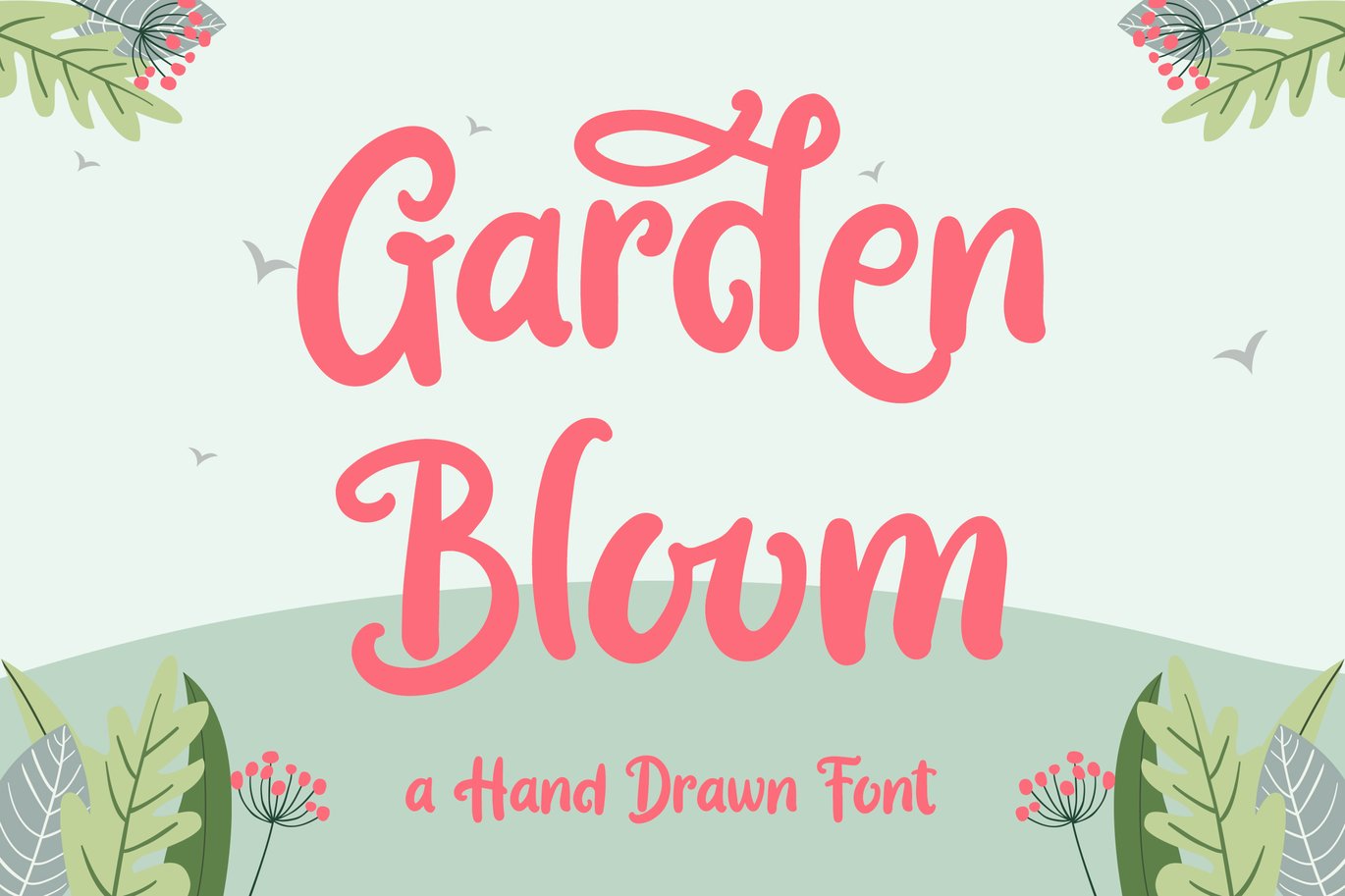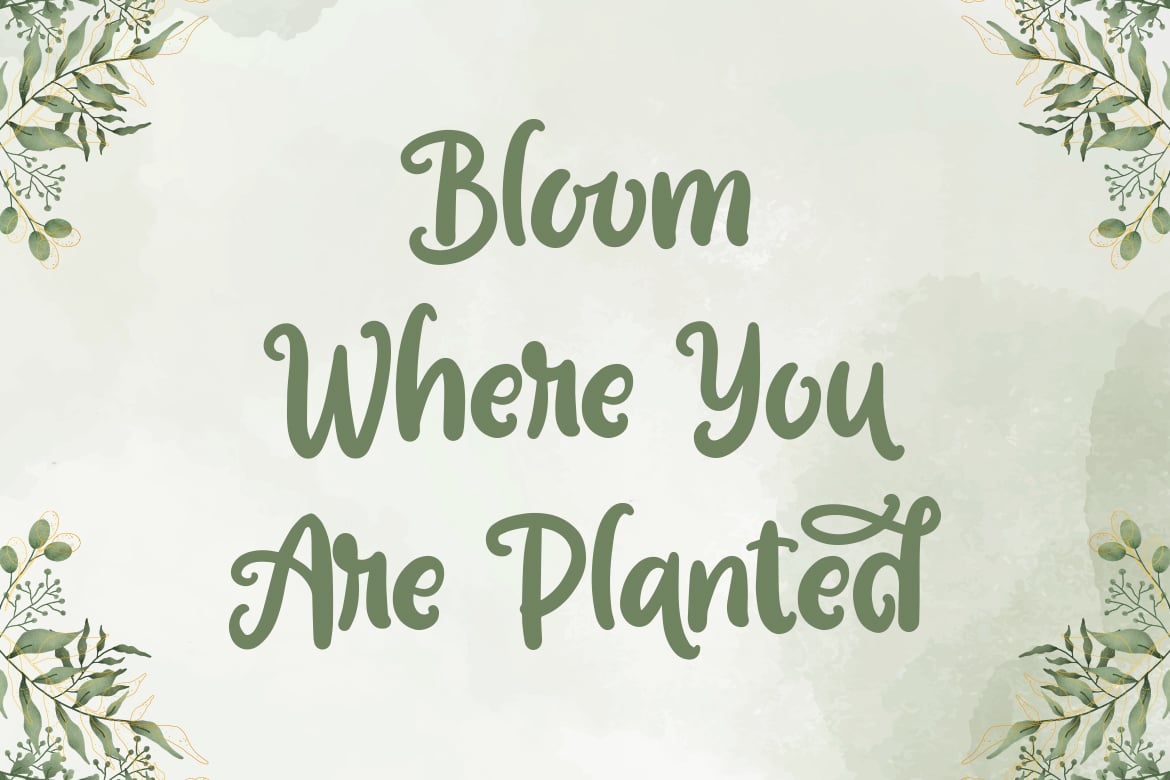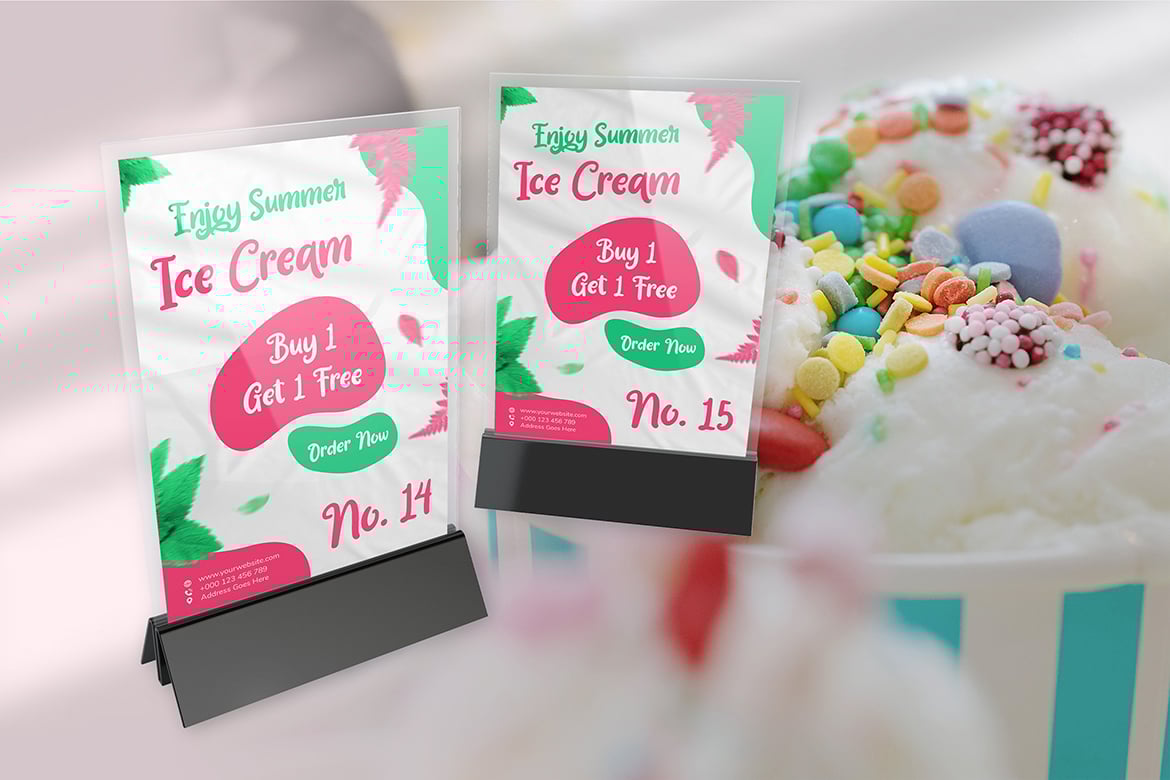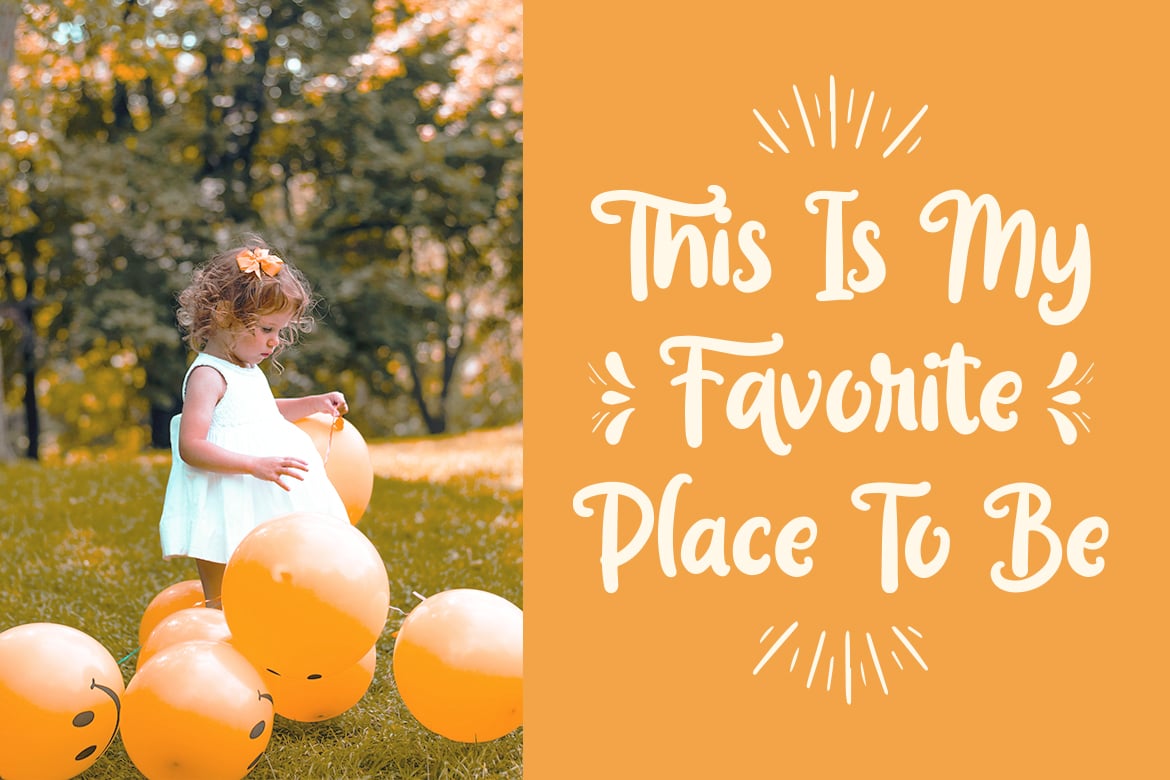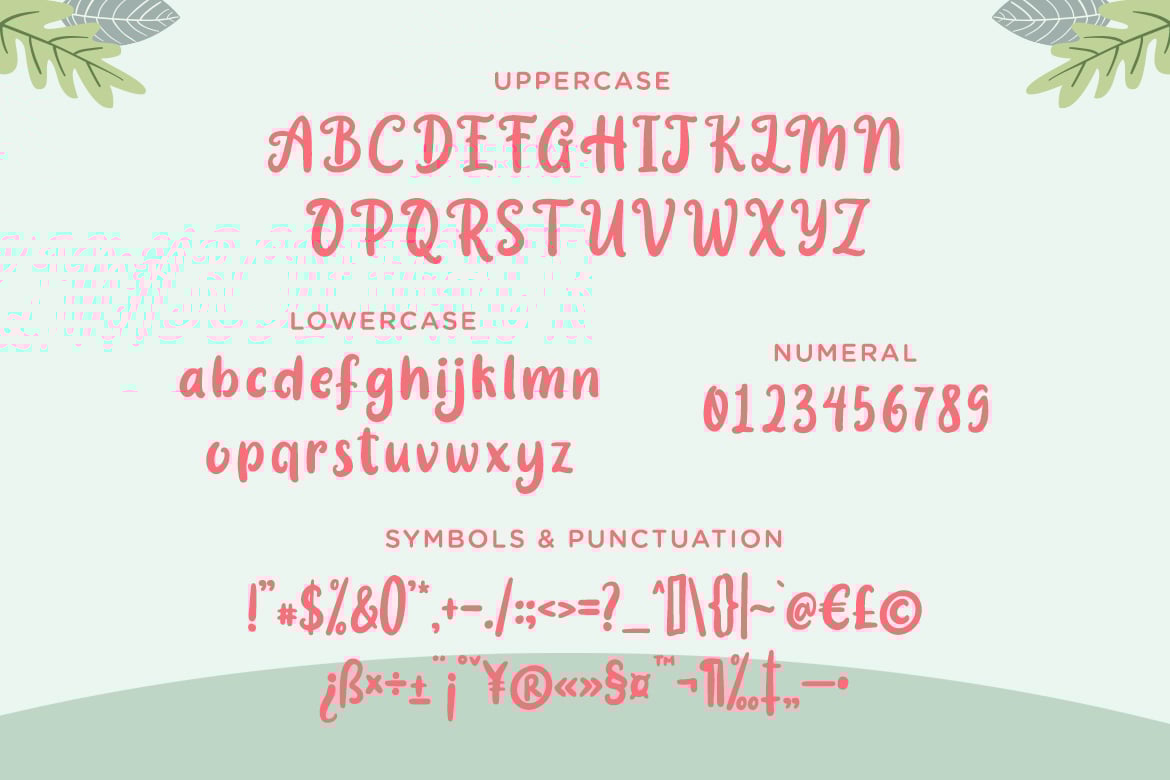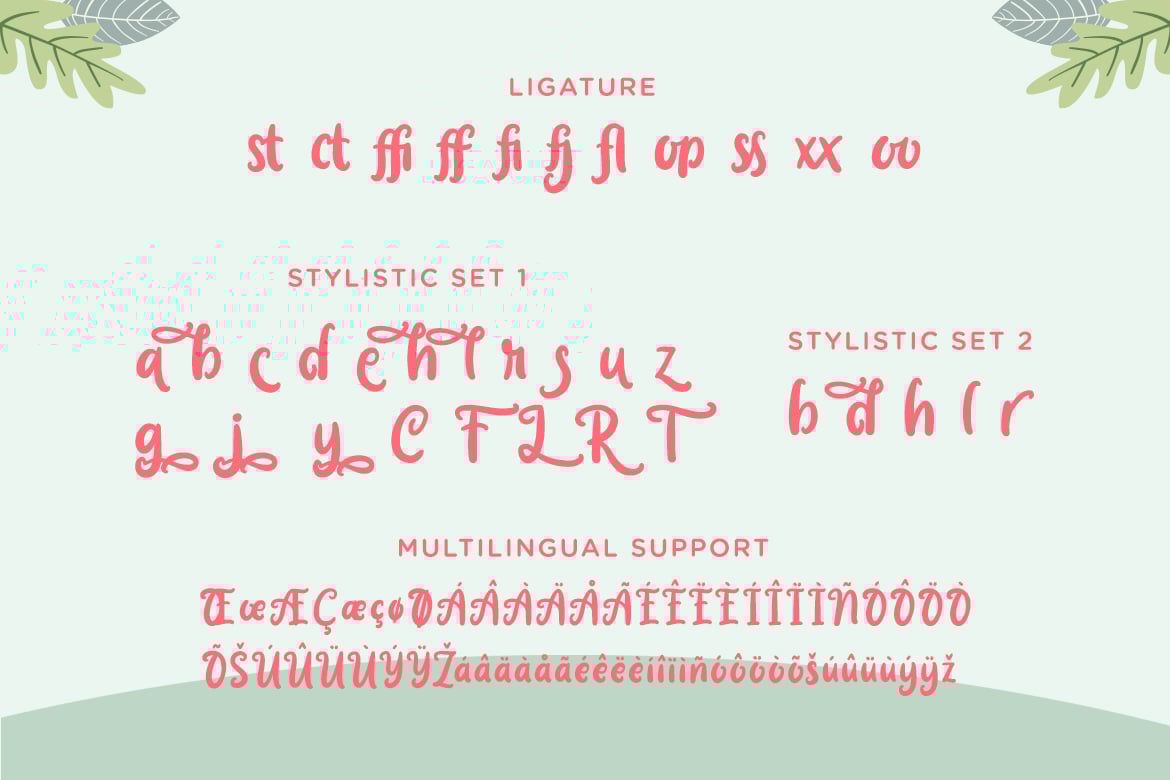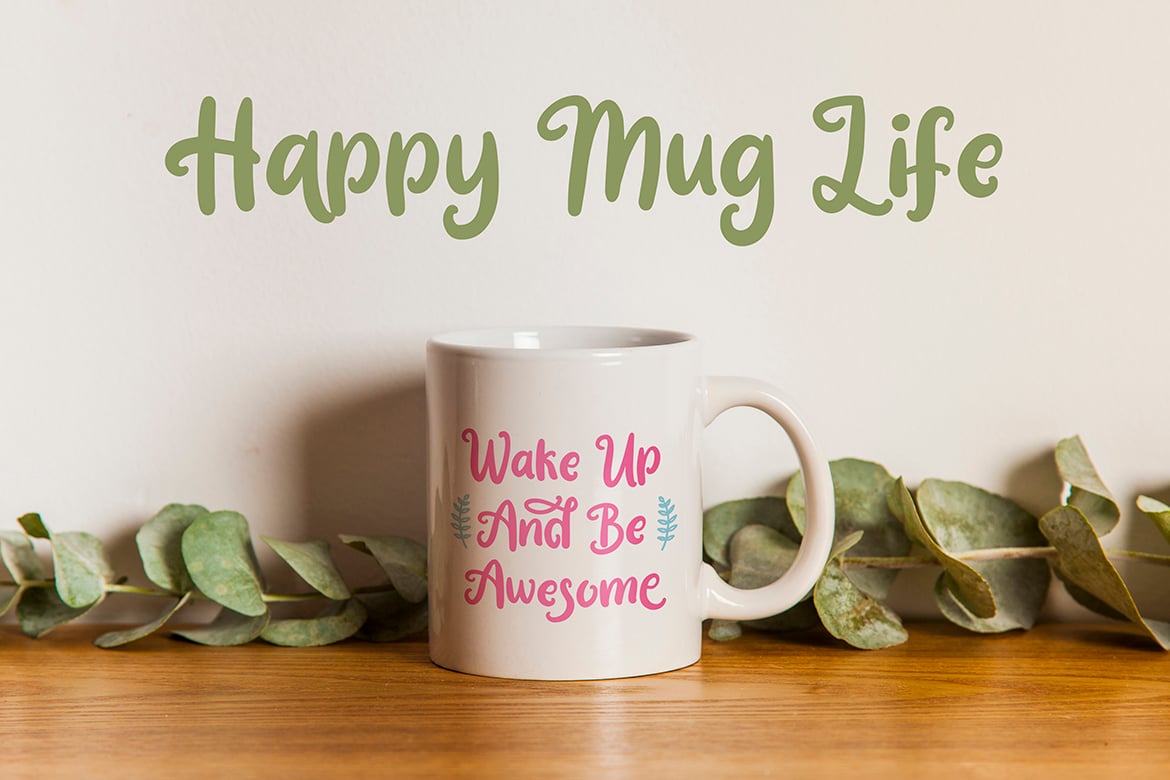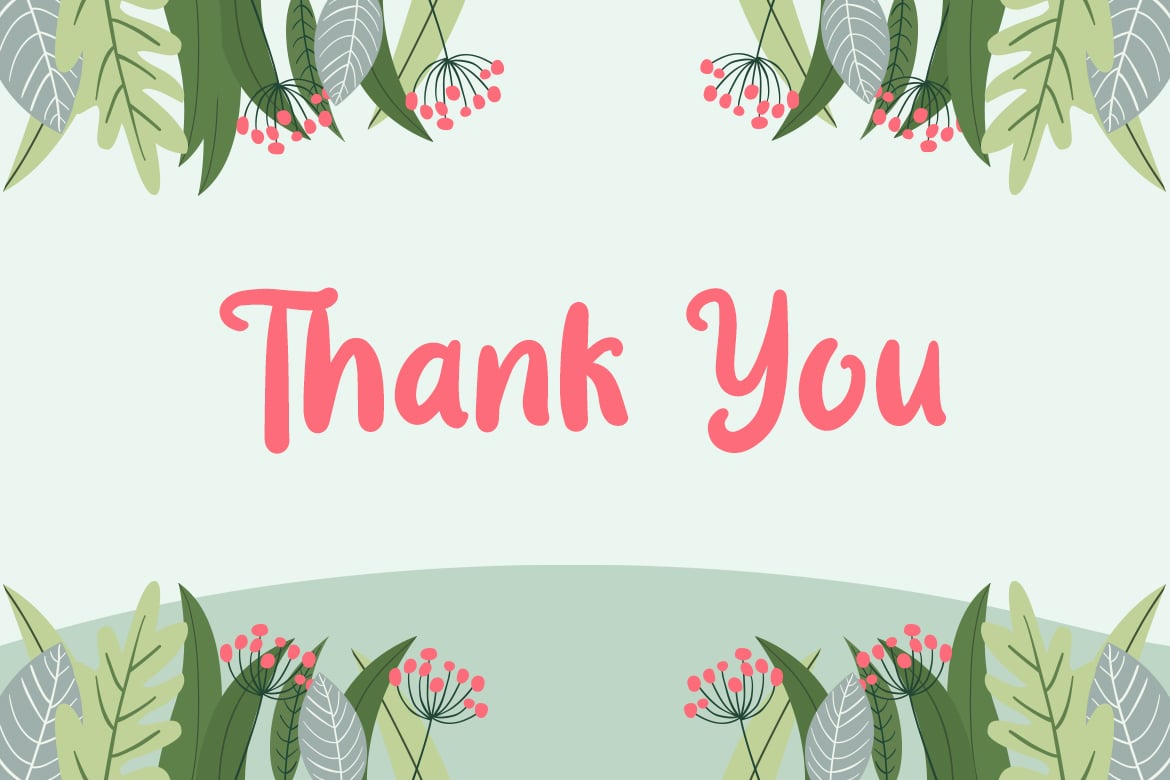
Garden Bloom – Hand Drawn Font
Garden Bloom is a fancy handwritten font, carefully handcrafted to become a true favorite.
This font will look outstanding in any context, whether it’s being used on busy backgrounds or as a standalone headline!
– Stylistic Set